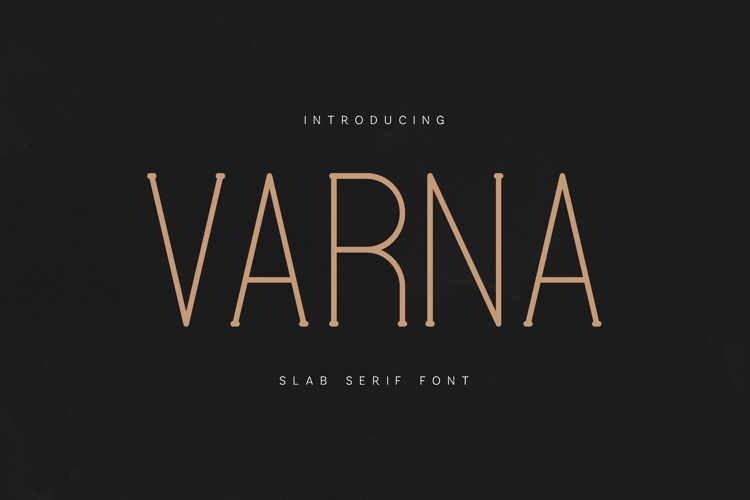
Varna Slab Serif Modern Condensed Display
Varna is a modern slab serif display font defined by its tall proportions, clean structure, and distinctive rounded slab terminals. The combination of minimal geometry and subtle character details gives it a strong yet refined presence.
Designed for clarity and impact, Varna works beautifully in both large headlines and structured layouts. Its narrow width makes it especially effective for modern branding, posters, and editorial compositions where space and balance matter.
With its unique slab style and contemporary feel, Varna brings a fresh and versatile look to any creative project.
• Condensed proportions
• Rounded slab terminals
• Clean modern structure